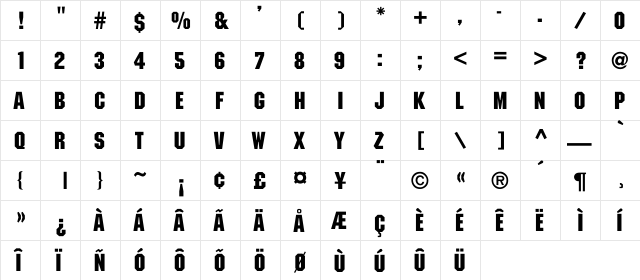
Royce Regular
Design Context for Royce Typeface
Royce is a composed and adaptable typeface that performs quietly and consistently across a wide range of design contexts.